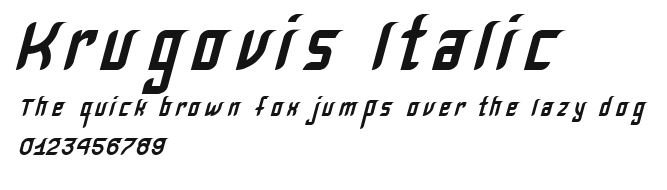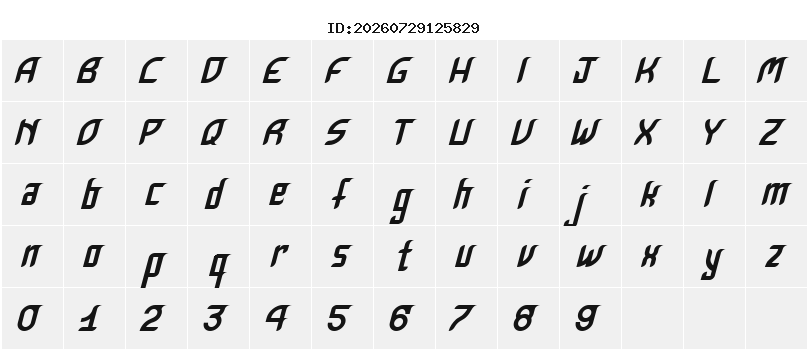
Krugovis-Italic Preview
• Font Name: Krugovis-Italic
• Full Font Name: Krugovis-Italic
• PostScript Name: Krugovis-Italic
• Character Count: 67
• Designer: Bruno de Almeida
• Manufacturer: Almeida Bruno
About Krugovis-Italic.ttf
Krugovis-Italic.ttf is a modern, elegant sans-serif font designed for ultimate readability and visual harmony. Perfect for branding, headlines, web design, and print materials.